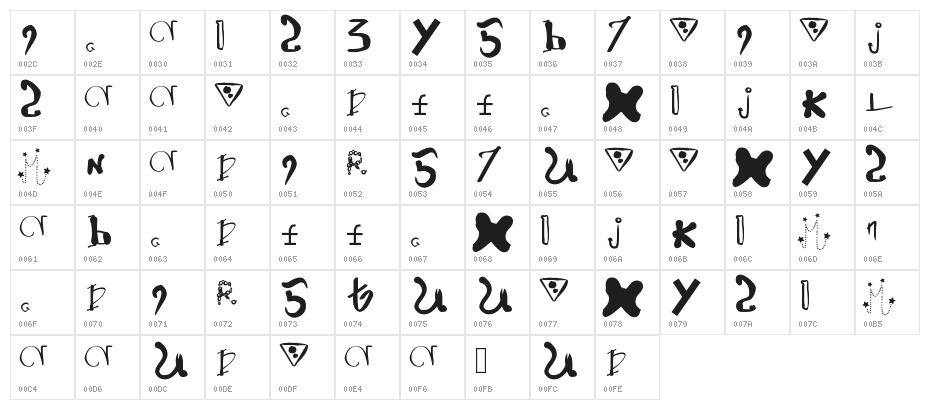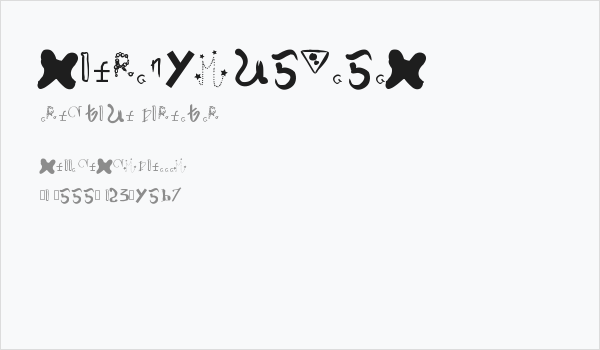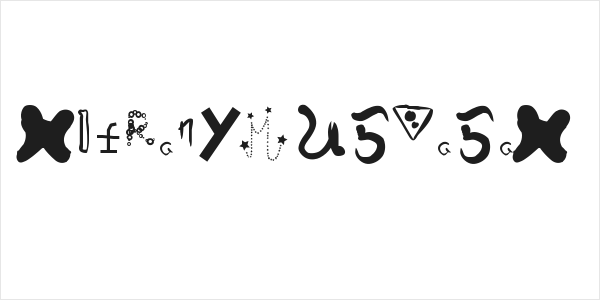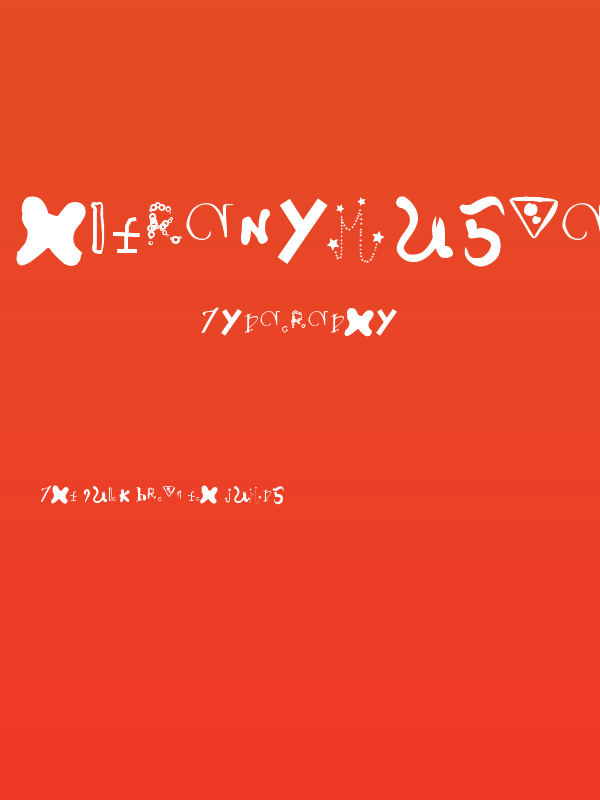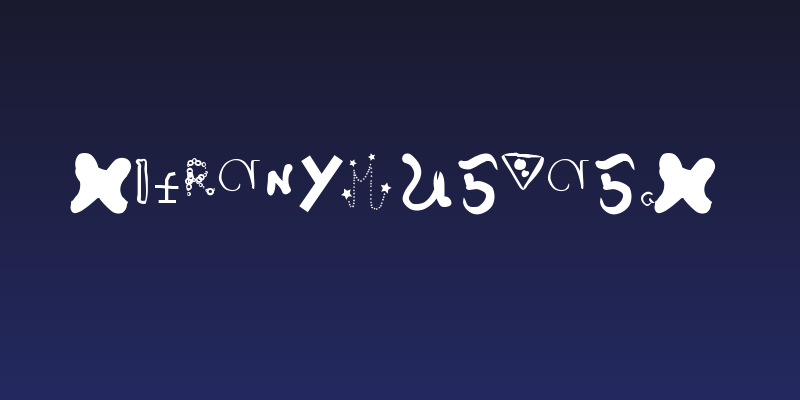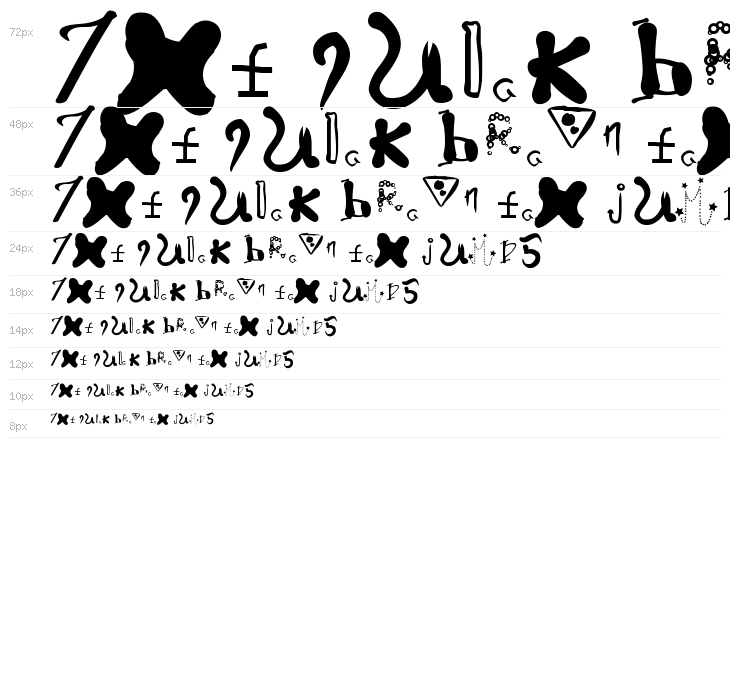
HieronymusBosch Font
HieronymusBosch Description
This font is a highly decorative and artistic typeface, featuring a whimsical and abstract design. Each character is uniquely crafted with playful and imaginative elements, such as stars, dots, and unusual shapes. The letters have a hand-drawn quality, with varying stroke thicknesses and unexpected curves. The overall appearance is bold and expressive, making it stand out with its unconventional style. This font is not suited for traditional text but rather for creative projects where a unique and eye-catching look is desired. The characters are widely spaced, adding to the artistic flair and making each letter distinct.
| Use Case | Logos, Posters, Artistic Projects |
| Proposed Projects | Ideal for artistic posters, creative branding, album covers, and unique invitations. |